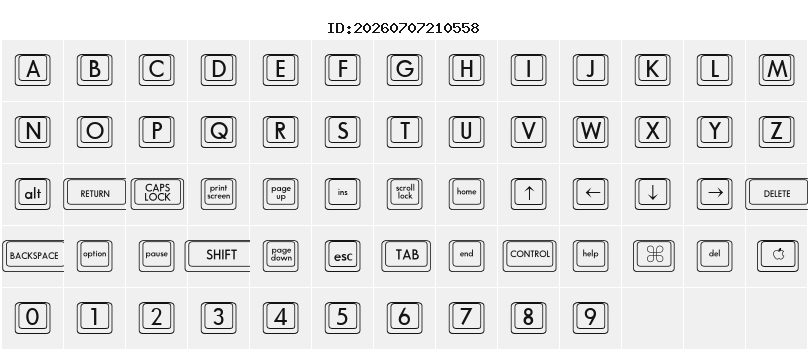
Davys Preview
About Davys.ttf
Davys.ttf is a modern, elegant sans-serif font designed for ultimate readability and visual harmony. Perfect for branding, headlines, web design, and print materials.